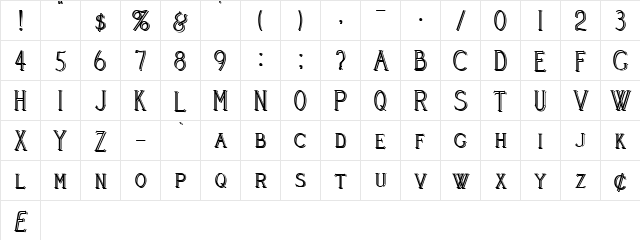
Cleaver's_Juvenia_Blocked Regular
Design Context for Cleaver's_Juvenia_Blocked Typeface
Cleaver's_Juvenia_Blocked is a composed and adaptable typeface that performs quietly and consistently across a wide range of design contexts.